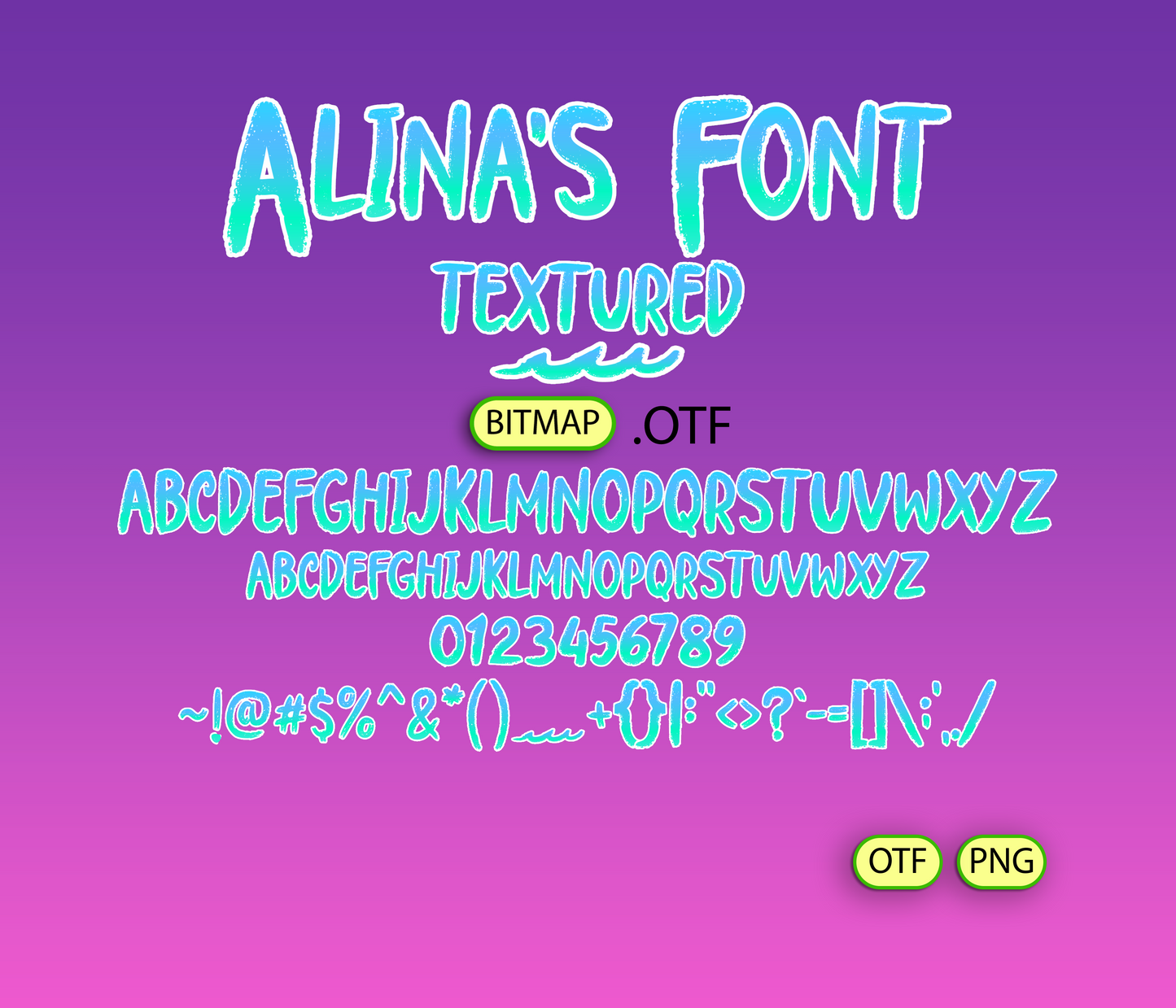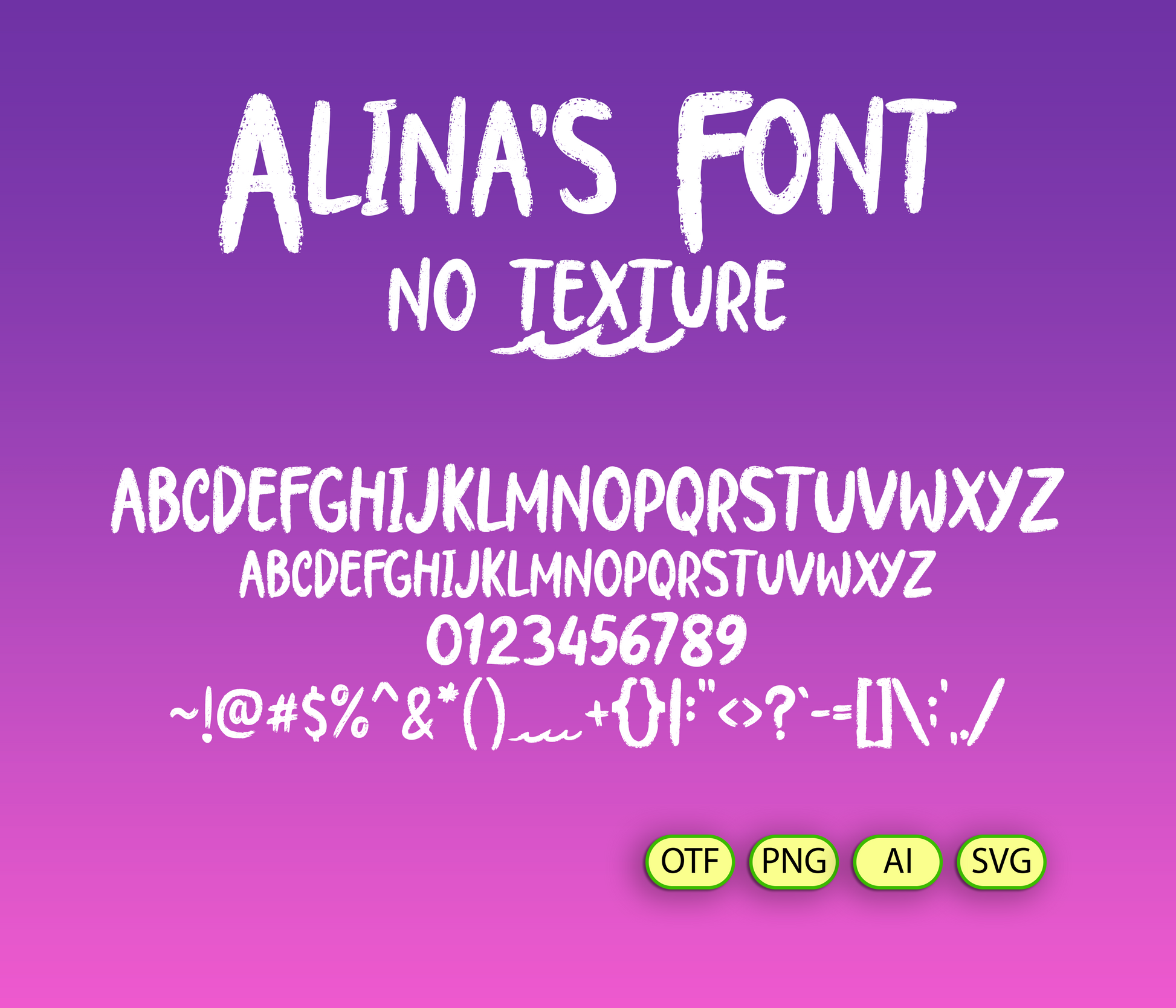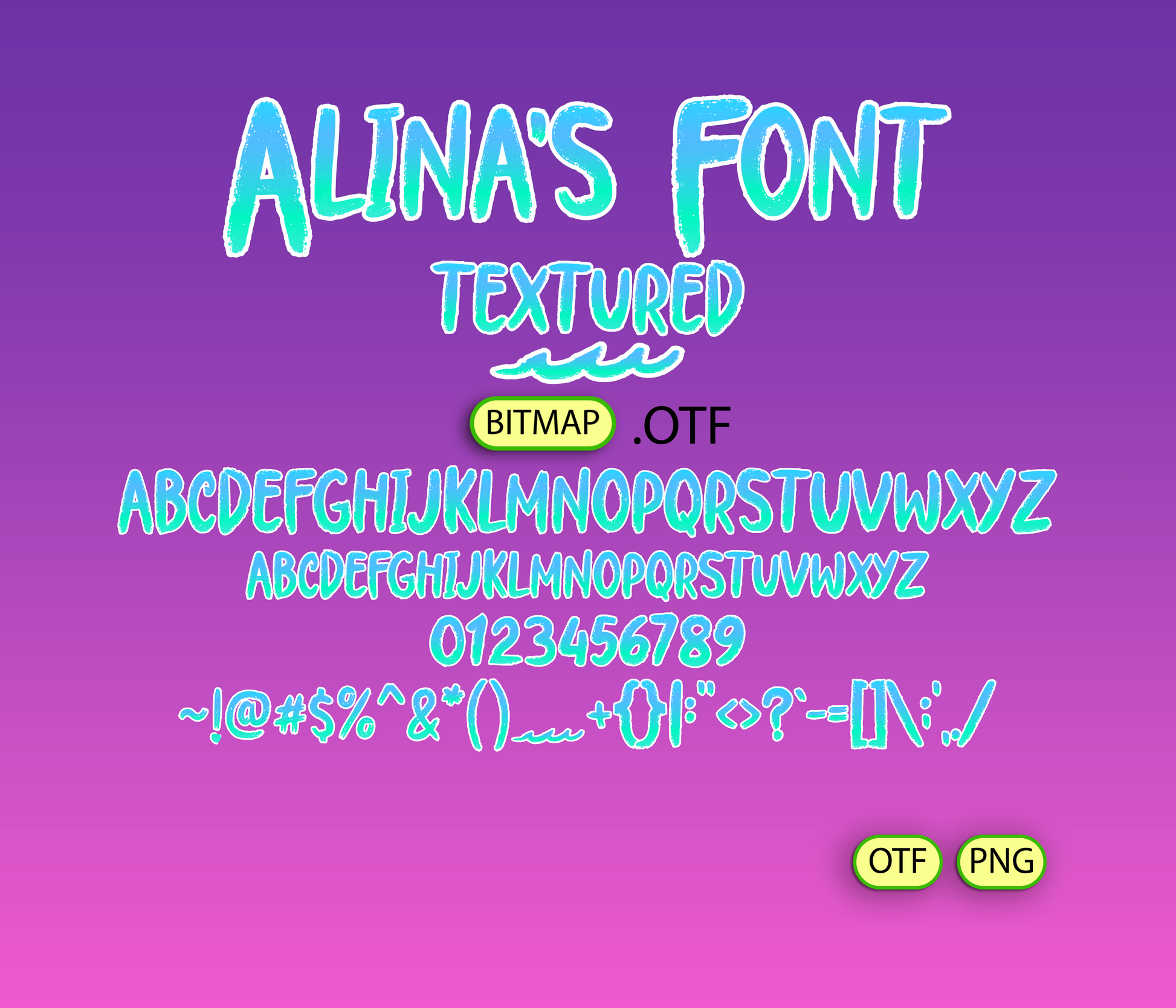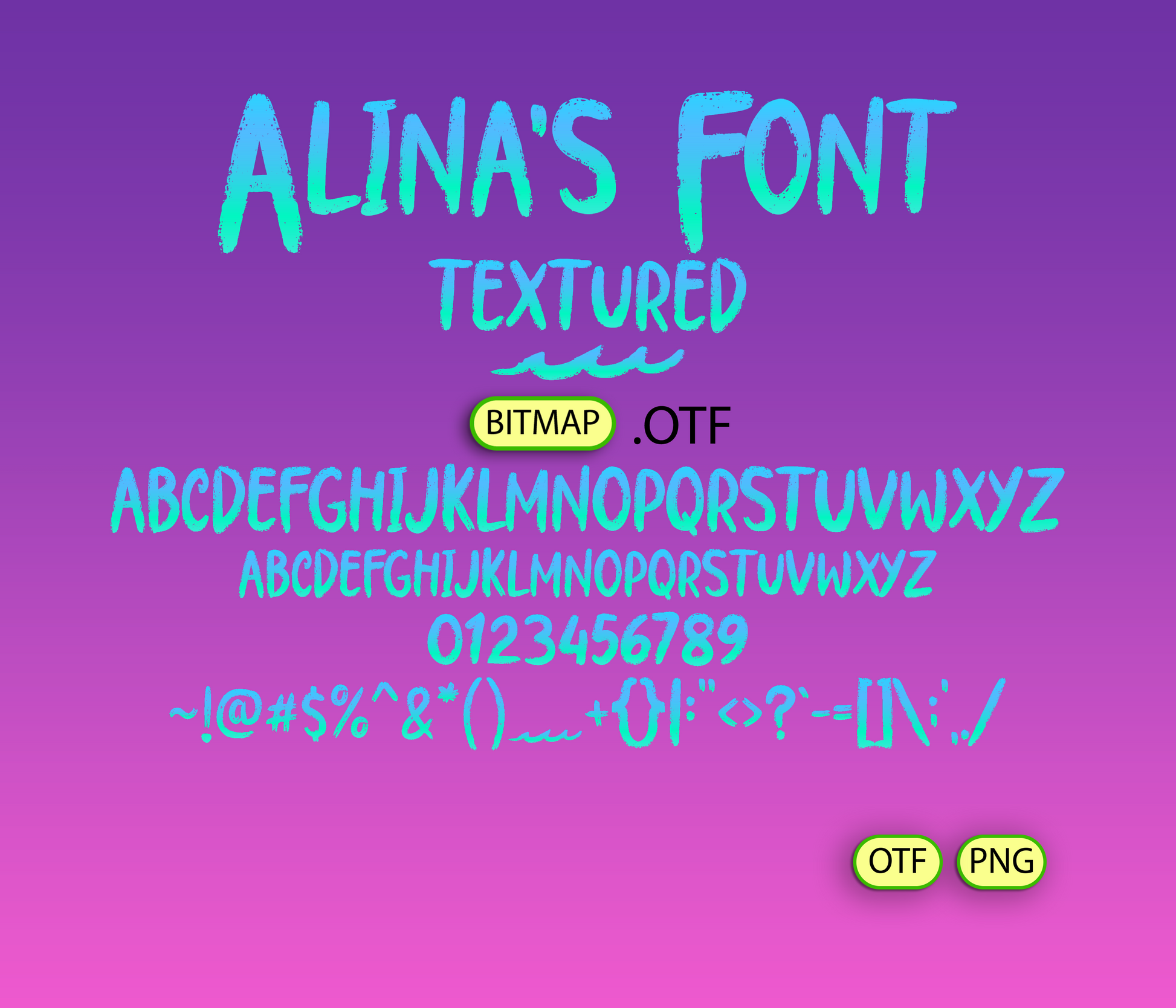
Riviera Font Textured
Experience the Magic of Portorosso with the Riviera Font
Embrace the sunlit charm of the Italian Riviera with the Riviera Font, inspired by an enchanting animated film. This whimsical typeface embodies an adventurous spirit and the quaint seaside village of Portorosso. From sparkling waters and vibrant buildings to lively festivals and heartfelt friendships, the Riviera Font infuses Mediterranean magic into your projects. Ideal for fans of seaside tales, this typeface evokes nostalgia and the joy of a summer brimming with possibilities.
The Riviera Font includes an extensive character set: uppercase and lowercase letters, numbers, and special characters, ensuring you can recreate the film's typography. Whether designing themed party invitations, fan art, or branding projects, the Riviera Font offers charm and versatility.
The Riviera Font package includes unique features that set it apart. Each letter and character is hand-drawn with attention to detail, maintaining its authentic, playful style. The package offers textured and non-textured variants for flexibility in your projects.
The Riviera Font captures the visual style of the movie while invoking the joy and wonder of its world. Its playful design and extensive character set make it a valuable addition to any designer's toolkit. Whether you're a fan of the film or simply looking for a charming and whimsical typeface, the Riviera Font is the perfect choice for bringing a touch of Portorosso to your creations.